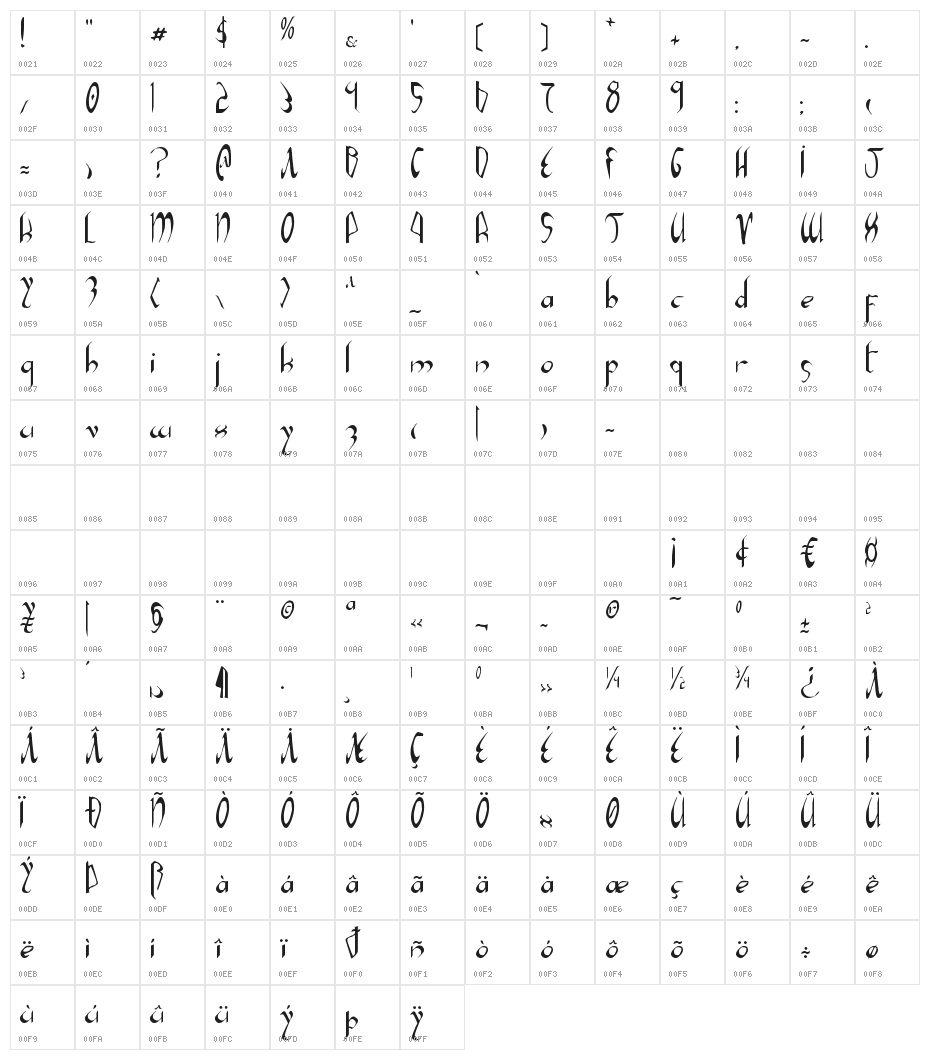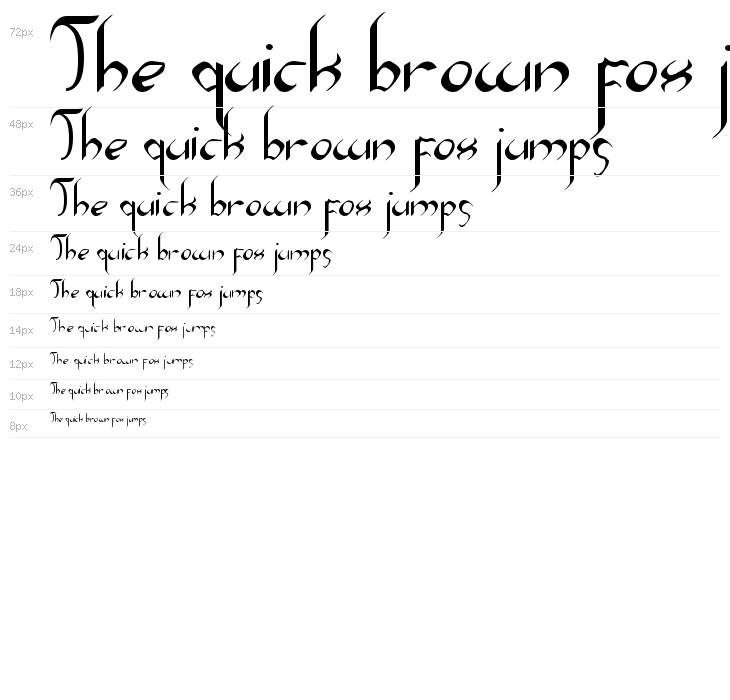
Xaphan Font
Xaphan Description
This font features a striking and unique design with sharp, angular edges and a gothic influence. The uppercase letters have a dramatic flair, with elongated strokes and pointed serifs that give them a medieval appearance. The lowercase letters maintain a similar style, with a slightly more condensed form. Numbers and special characters follow the same aesthetic, ensuring consistency across all glyphs. The overall look is bold and eye-catching, making it suitable for projects that require a strong visual impact.
XAPHAN UPPERCASE
XAPHAN LOWERCASE
XAPHAN OTHER CHARS
| Overall Style | Gothic, Decorative |
| Proposed Projects | Ideal for fantasy-themed designs, book covers, posters, and branding that requires a gothic or medieval touch. |